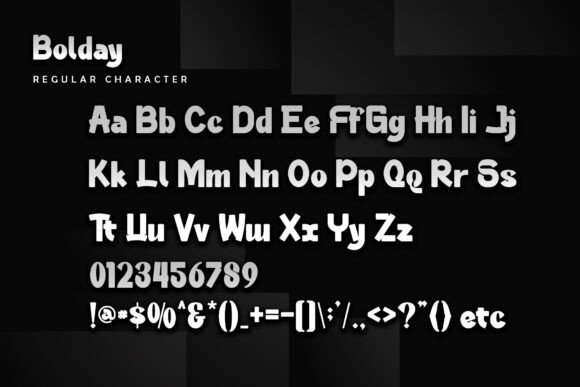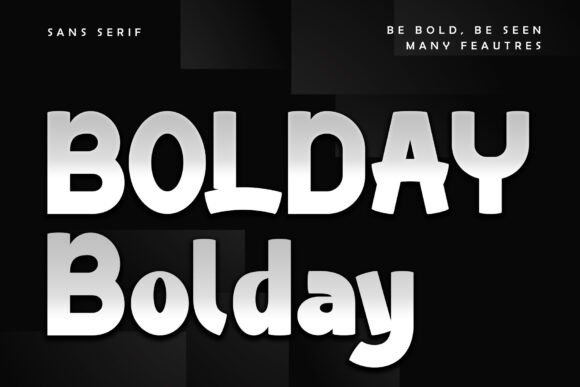
Unleash the Power of Design with Bolday Font
Have you ever been in the middle of a design project, pouring your heart and soul into it, when suddenly you realize that something is missing? Maybe it’s that one element that will take your design from good to great. For me, that missing piece was a bold, sans-serif font that exudes confidence and modernity. That’s when I discovered Bolday, a game-changing font that has become my go-to for standout branding, captivating headlines, and eye-catching packaging.
A Personal Design Moment: The Struggle is Real
I recall working on a project for a fashion brand, struggling to find the perfect font that would reflect their bold and edgy personality. I tried font after font, but none seemed to capture the essence of their brand. That was until I stumbled upon Bolday. Its strong, clean lines and dynamic edge immediately caught my attention, and I knew I had found the perfect fit.
What I Love About Bolday ✨
• ✅ Confidence and Modernity: Bolday exudes confidence and modernity in every letter, making it perfect for designs that need to make a statement.
• ✅ Clean Lines and Precision: The font’s strong, clean lines deliver clarity and style with effortless sophistication.
• ✅ OpenType Features: Bolday comes with PUA encoding, unlocking access to a range of unique glyphs and swashes, allowing for creative freedom.
• ⚠️ Limited Use in Serif-Heavy Designs: Bolday is a sans-serif font, so it might not be the best fit for designs that heavily feature serif fonts.
• ⚠️ Overuse Can Be Overwhelming: Due to its bold nature, using Bolday excessively can be overwhelming. It’s essential to balance it with other fonts.
Bolday was crafted with the modern designer in mind. Its creator aimed to develop a font that would blend bold precision with a dynamic edge, making it perfect for designs that need to stand out. Inspired by the latest design trends and a passion for typography, Bolday was born to make a statement.
Q: What is PUA encoding, and how does it benefit Bolday users?
PUA (Private Use Area) encoding allows font creators to include additional glyphs and swashes that aren’t part of the standard Unicode character set. For Bolday users, this means access to a range of unique design elements that can enhance their projects.
Q: Is Bolday suitable for body text?
While Bolday is a bold sans-serif font, it’s primarily designed for headlines and titles. For body text, you might prefer a font with better readability and a less bold presence.